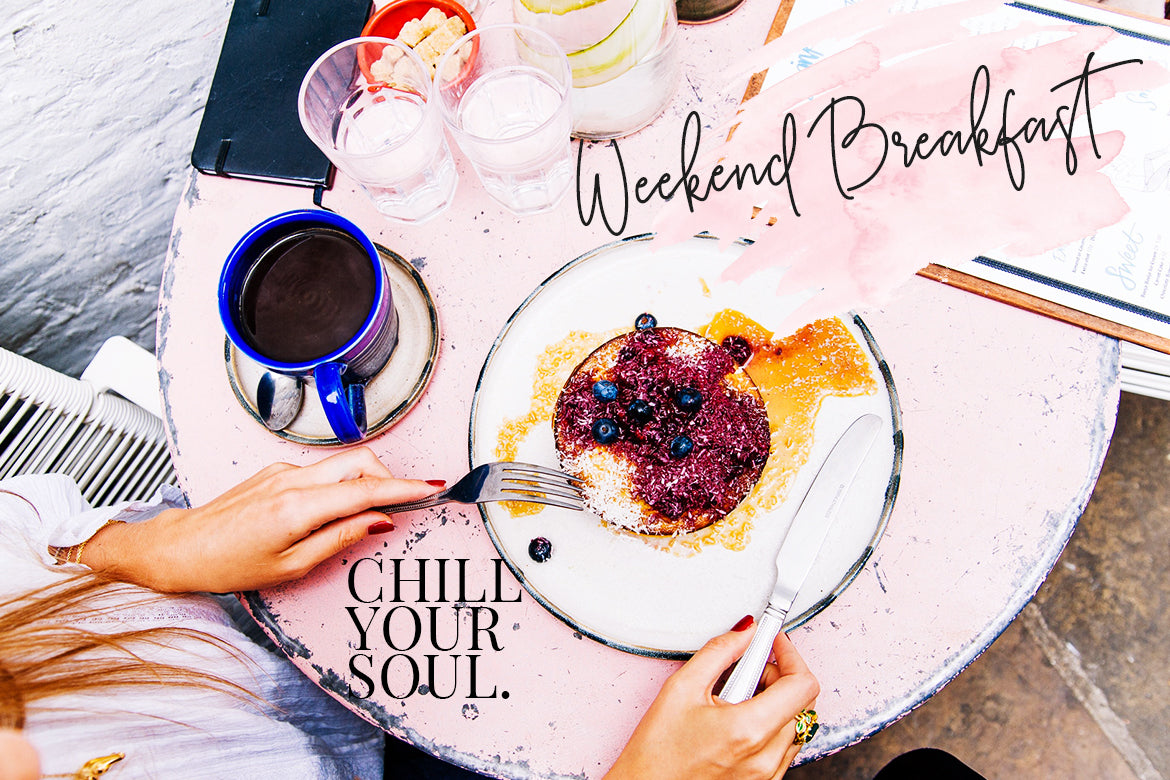
Kasting - Free Signature Script
Download free Kasting signature script font for graphic designers that need to present their work in a professional way. Go give some love to Creatype Studio for creating this top-notch free font. This is absolutely fancy font so you can easily make world-class designs.